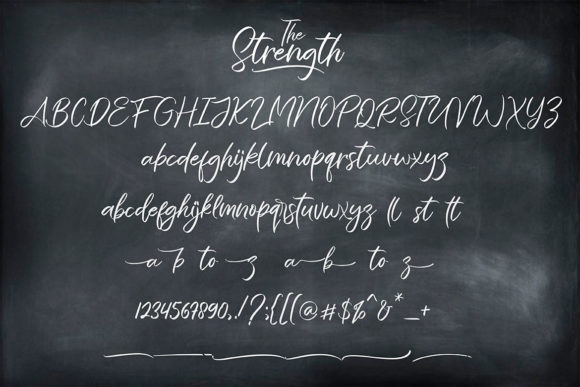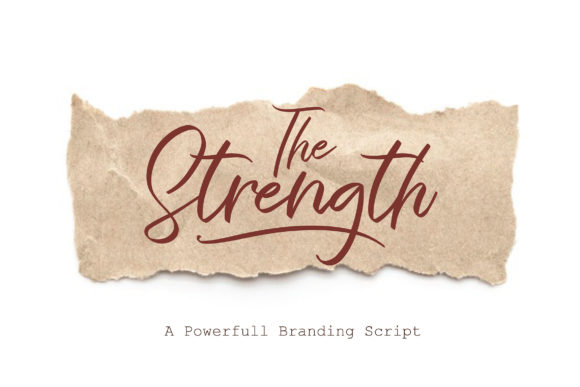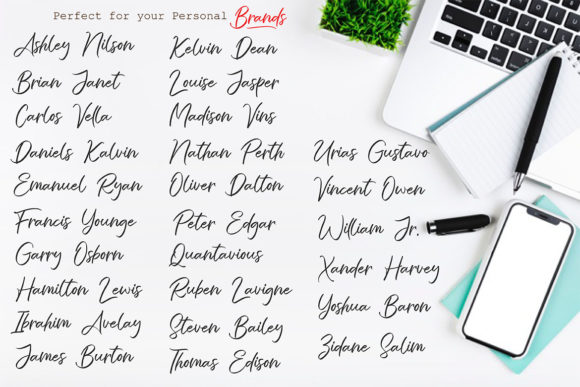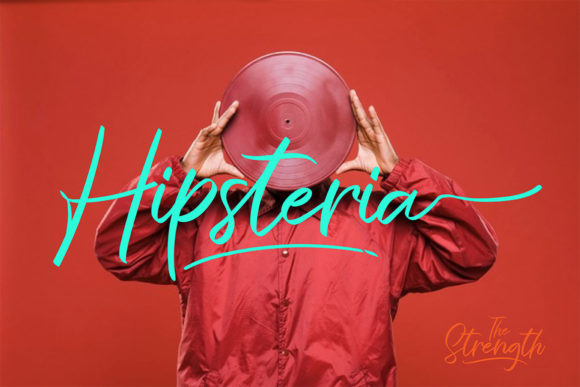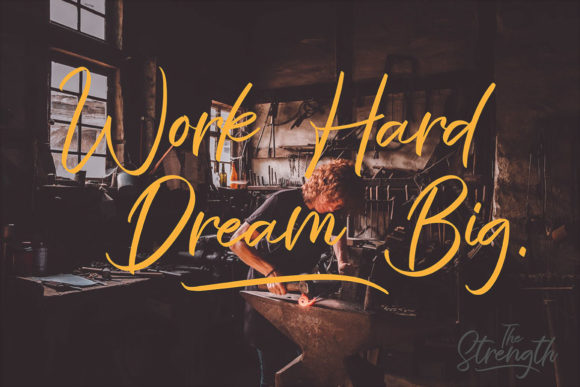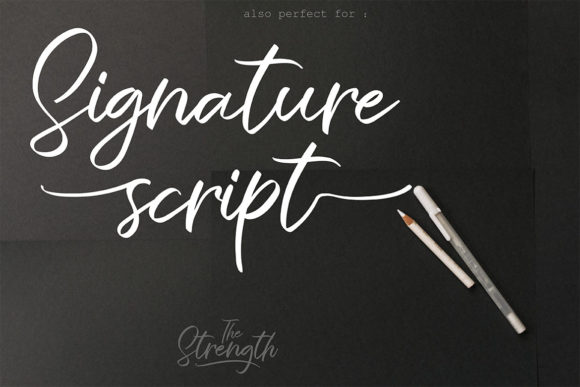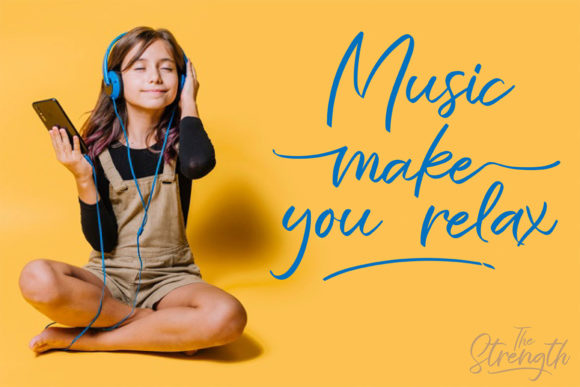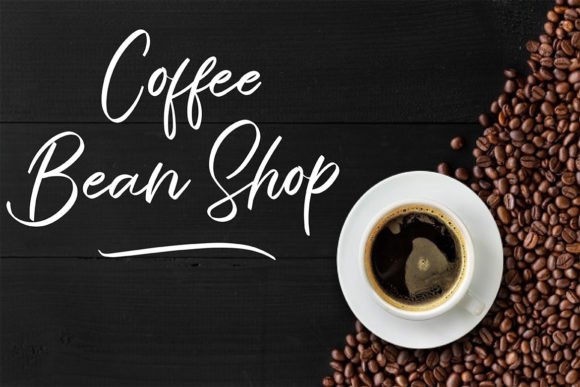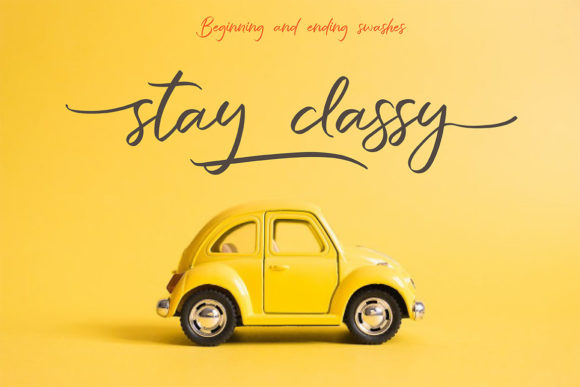
HomeScript FontsThe Strength Font Script Fonts The Strength Font FacebookXPinterestWhatsApp The Strength Font Poster 2 The Strength Font Poster 3 The Strength Font Poster 4 The Strength Font Poster 5 The Strength Font Poster 6 The Strength Font Poster 7 The Strength Font Poster 8 The Strength Font Poster 9 The Strength Font Poster 10 The Strength Font Poster 11 The Strength Font Poster 12 About The Strength Font The Strength is a bold and powerful script with a contemporary look. DOWNLOAD ON CREATIVE FABRICAThis font is sold and delivered by Creative Fabrica. Font Canyon may earn a commission if you buy through this link. People also explored Finger Font Auforbia Font Amazing Culine Font Daily Update Font Ayunda Font Better Dreams Font Halingtone William Font Balerina Script Font Austhina Font 269 0 TagsThe Strength Font Previous articleFreaks FontNext articleRoasttery Font LEAVE A REPLY Cancel reply Comment: Please enter your comment! Name:* Please enter your name here Email:* You have entered an incorrect email address! Please enter your email address here Website: Save my name, email, and website in this browser for the next time I comment. Personal Use Free Girl Personal Use Free Read more about this font Carved Wood Personal Use Free Read more about this font Midnight Show Personal Use Free Read more about this font Advantage Personal Use Free Read more about this font BLOG Where to Buy American Fonts Online in 2024 Where to Buy American Fonts Online: The Ultimate Guide for 2024 Looking for the perfect American font to elevate your design projects? You're in the... The 10 Best Handwriting Fonts to Add Personality to Your Designs Modern Sans-Serif Fonts That Brands Love in 2025 How to Cut Any Font on Cricut: Convert a Font to SVG (Free)